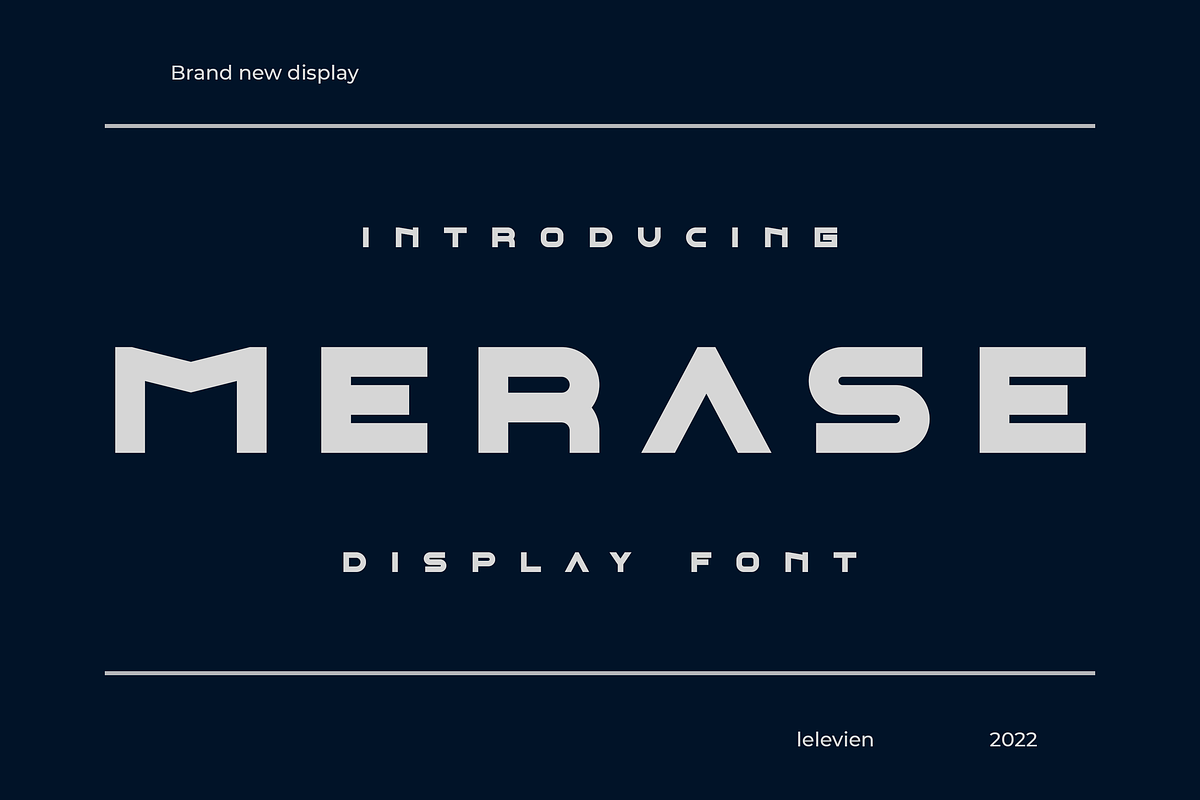
Add a sleek, contemporary feel to your designs with Merase Font Free Download. This modern sans-serif typeface is ideal for creating clean, minimalistic logos, branding, websites, and editorial layouts that require both style and clarity.
Merase features geometric letterforms, balanced proportions, and smooth curves, giving it a polished and professional appearance. It includes uppercase and lowercase letters, numerals, punctuation, and multilingual support—perfect for testing out modern, streamlined designs across both print and digital media.
Whether you're working on a tech brand or a minimalist visual identity, Merase brings a refined, contemporary vibe to your work. For any commercial use, be sure to obtain the appropriate license. Download Merase Font Free Download today and elevate your design with sleek, modern typography.